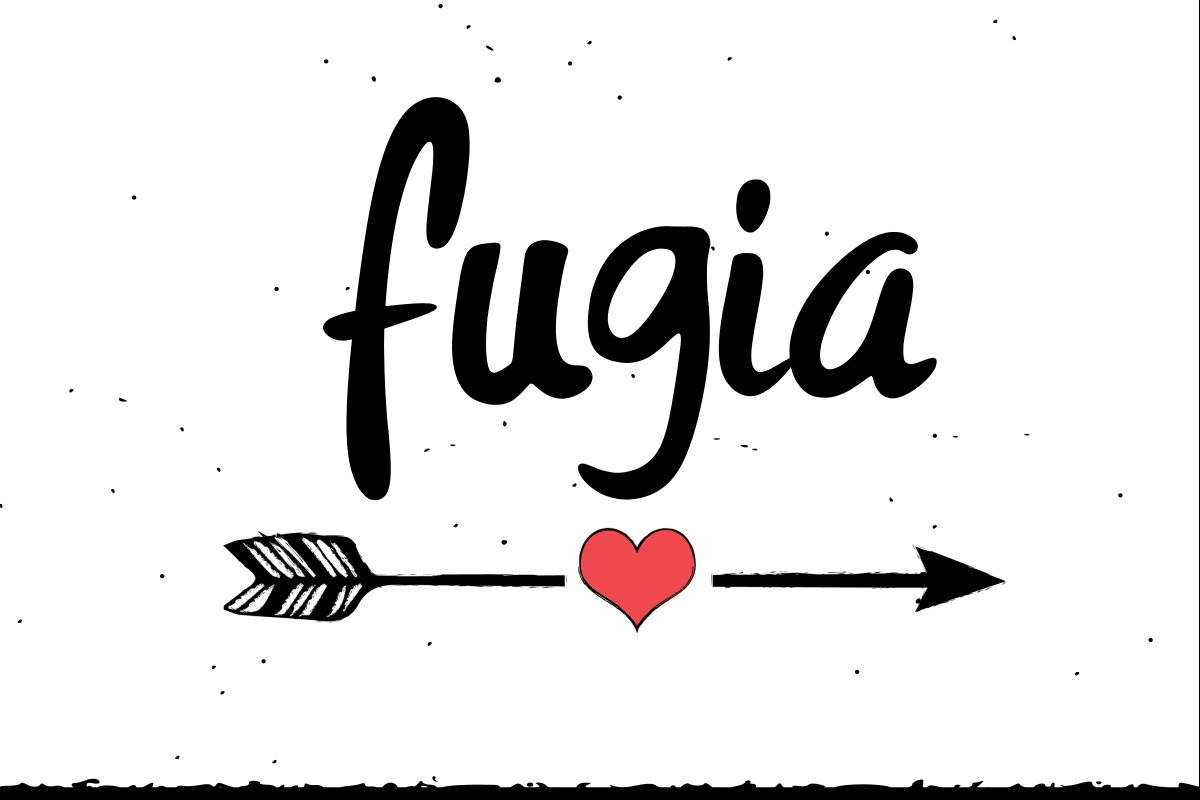
Fugia
Fugia is a handdrawn font. Suitable for many design projects such as product labels, posters, book titles, youtube thumbnails, social media, product display and so on.